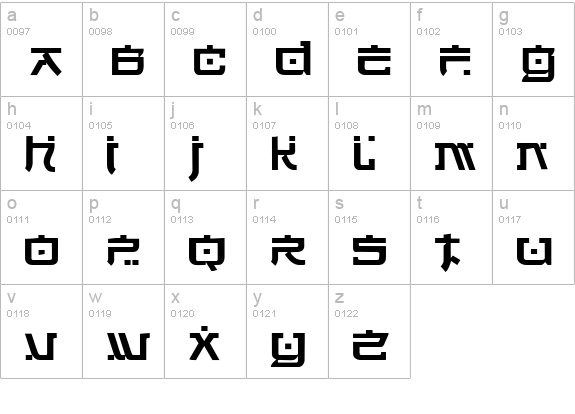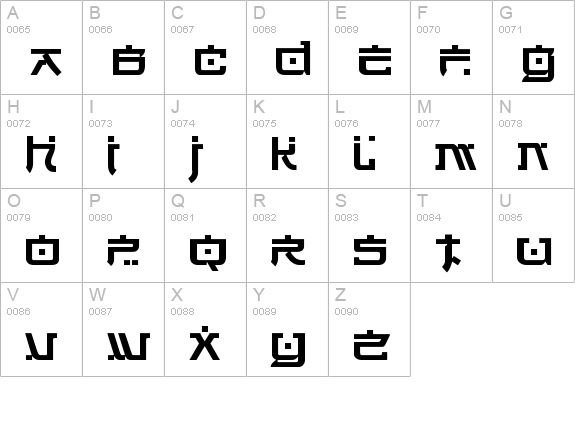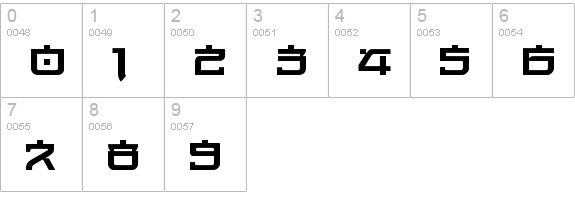
Hirosh is a free for personal use font in the Modern > Sci-Fi category. It has been downloaded 36 times and is available for Windows, Mac and Linux.
Introducing Hirosh Font, a stunning typeface that effortlessly exudes elegance and style. This font is the perfect combination of modernity and sophistication, making it ideal for a wide range of design projects. With its sleek and clean lines, Hirosh Font adds a touch of professionalism to any creative endeavor. What sets Hirosh Font apart is not only its impeccable design, but also the fact that it is freely available to download at FontsMarket.com. Yes, you read that right! This incredible font can be yours without spending a dime. Now you can elevate your designs without breaking the bank. Whether you're creating a logo, designing a website, or crafting eye-catching marketing materials, Hirosh Font will undoubtedly make a lasting impression. Its versatility allows it to adapt to various design styles and contexts, ensuring that your project stands out from the crowd. Hirosh Font's extensive character set includes uppercase and lowercase letters, numerals, punctuation marks, and special characters, guaranteeing that you have all the tools you need to bring your vision to life. Its carefully crafted curves and precise letter spacing make for a legible and visually pleasing reading experience. So why wait? Head over to FontsMarket.com and download Hirosh Font today. Don't miss out on this incredible opportunity to enhance your designs with a top-quality font that won't cost you a penny. Unleash your creativity and let Hirosh Font be the catalyst for your next design masterpiece.